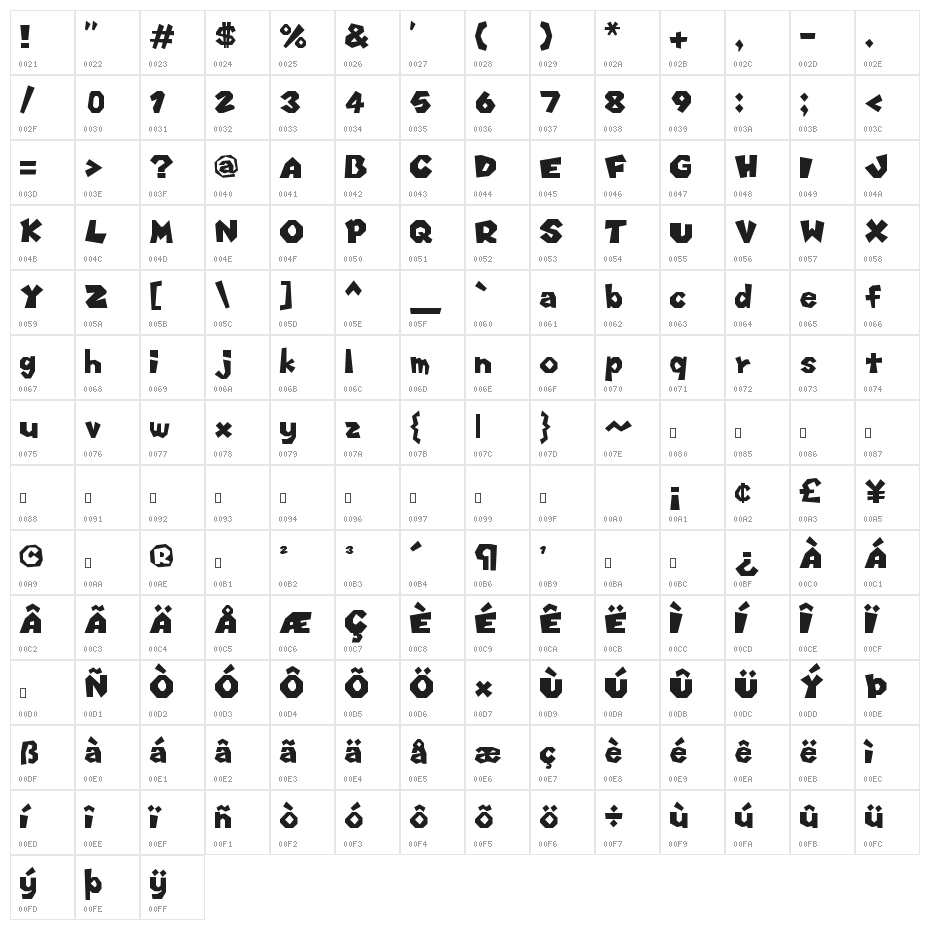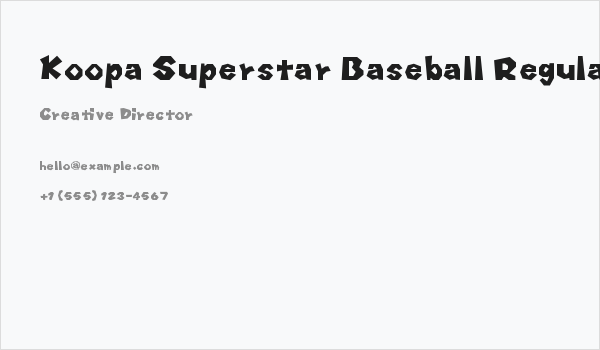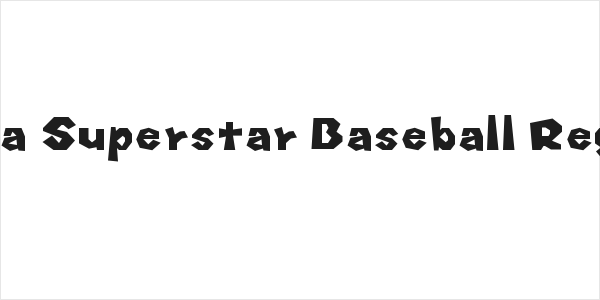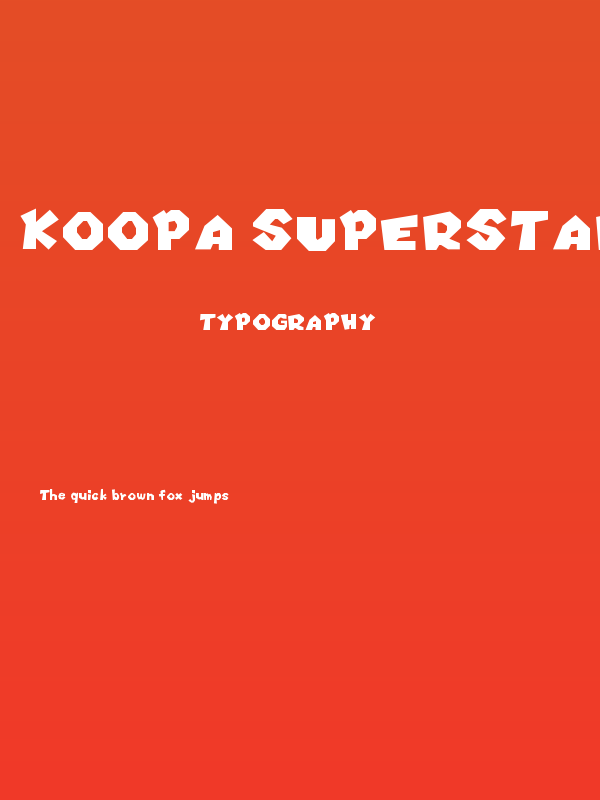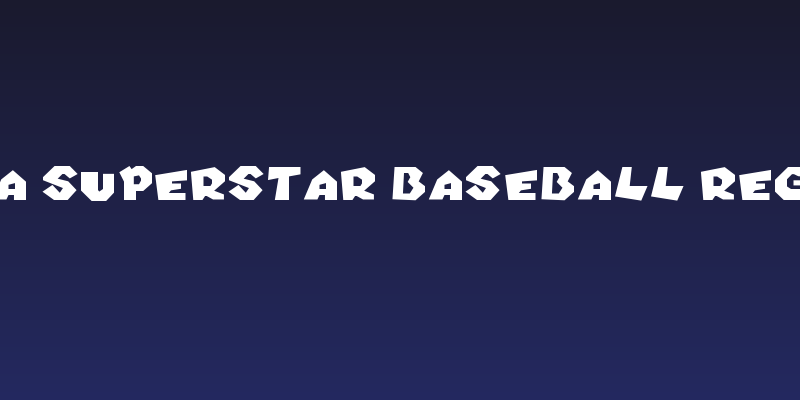
Koopa Superstar Baseball Regular Font
Koopa Superstar Baseball Regular Description
This font features a bold and playful design, characterized by its angular and geometric shapes. Each letter has a unique, slightly irregular form that adds a sense of movement and energy. The uppercase and lowercase letters maintain a consistent style, with sharp edges and a blocky appearance. Numbers and special characters follow the same design principles, ensuring a cohesive look across all elements. The font's distinct style makes it stand out, offering a dynamic and eye-catching aesthetic.
Overall StylePlayful, Energetic, Modern
Proposed ProjectsIdeal for video game titles, children's book covers, posters, and any project needing a fun, dynamic look.